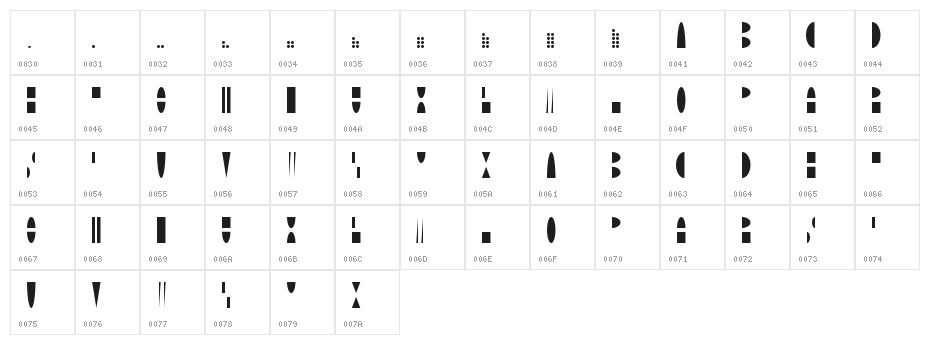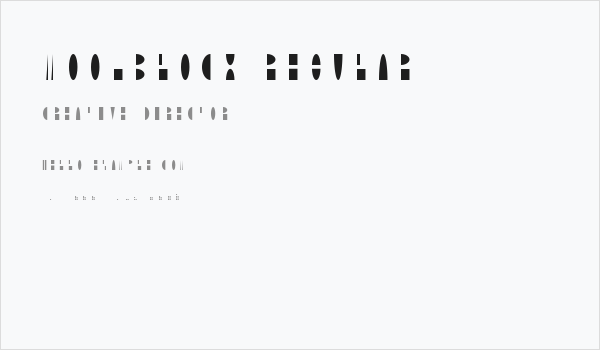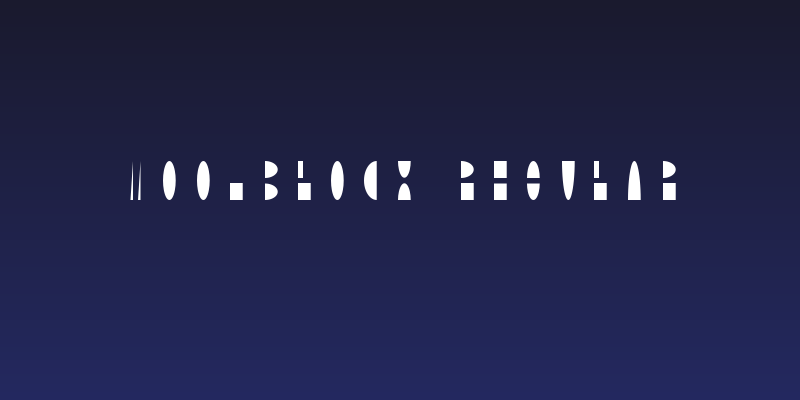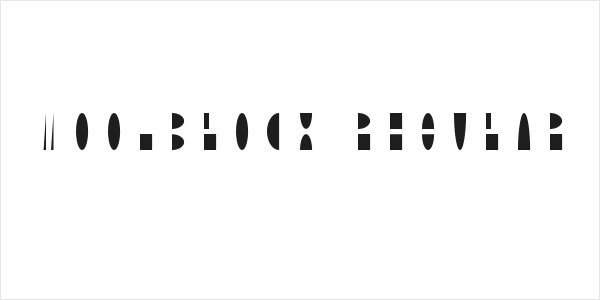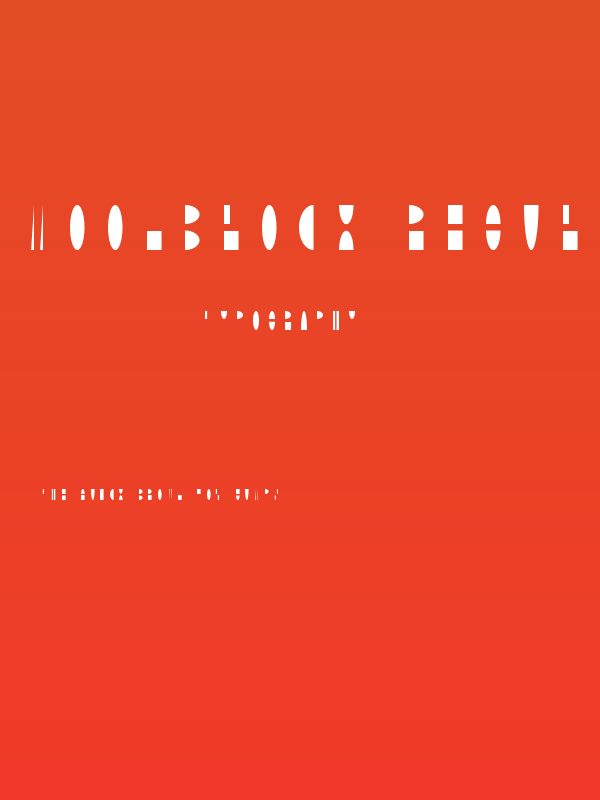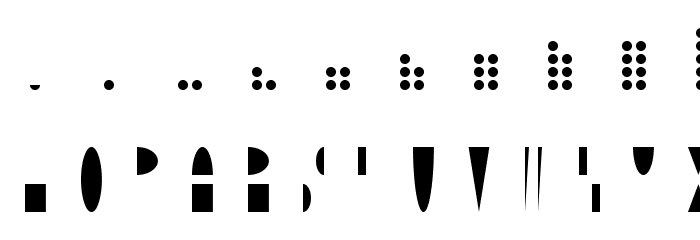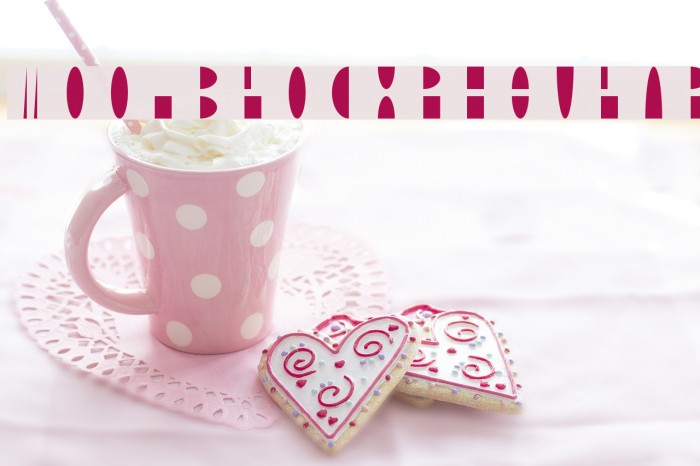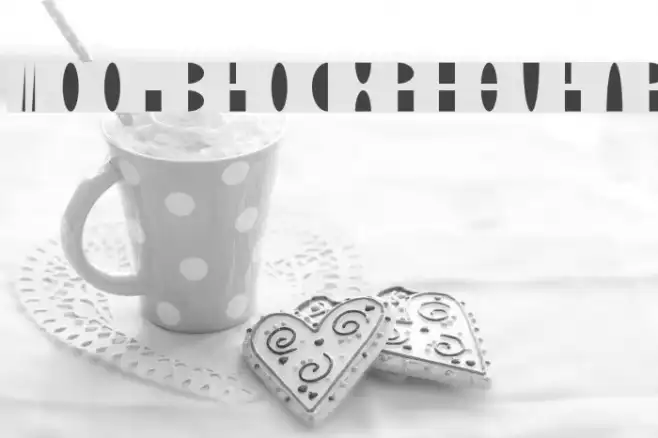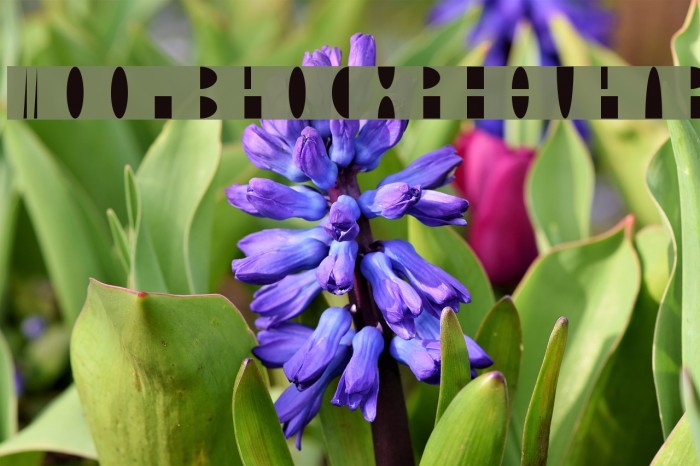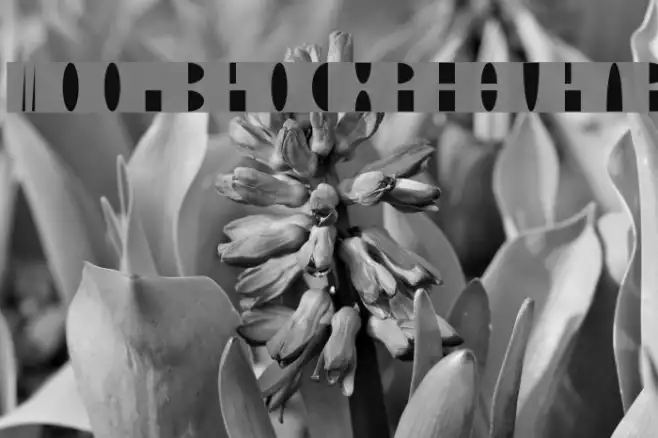
Moonblock-Regular Font
Moonblock-Regular Description
This font features a bold and geometric design, characterized by its use of solid, block-like shapes to form each letter. The style is highly modern and abstract, with a focus on symmetry and minimalism. Each character is constructed using a combination of circles, rectangles, and straight lines, creating a unique and eye-catching appearance. The font lacks traditional serifs and instead relies on its bold, solid forms to make an impact. The overall aesthetic is futuristic and experimental, making it suitable for creative and contemporary projects.
| Use Case | Logos, Headlines, Posters |
| Proposed Projects | Ideal for use in modern branding, futuristic designs, posters, and digital media where a strong visual impact is desired. |